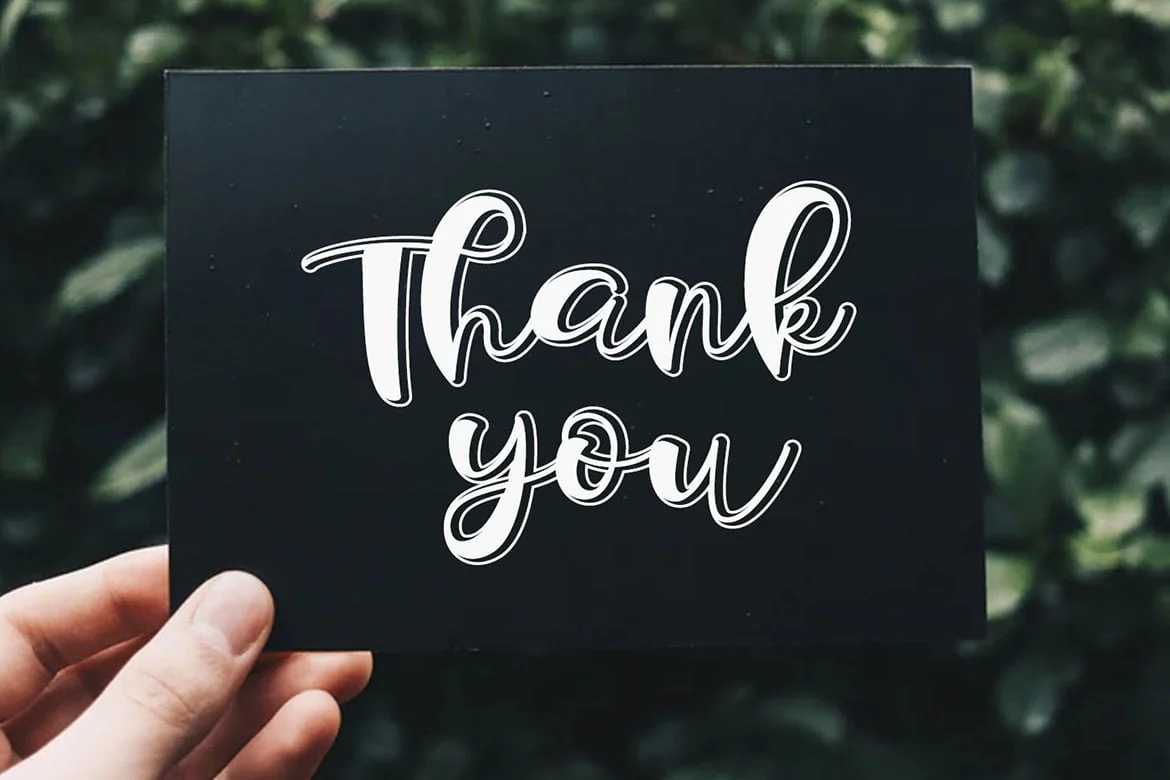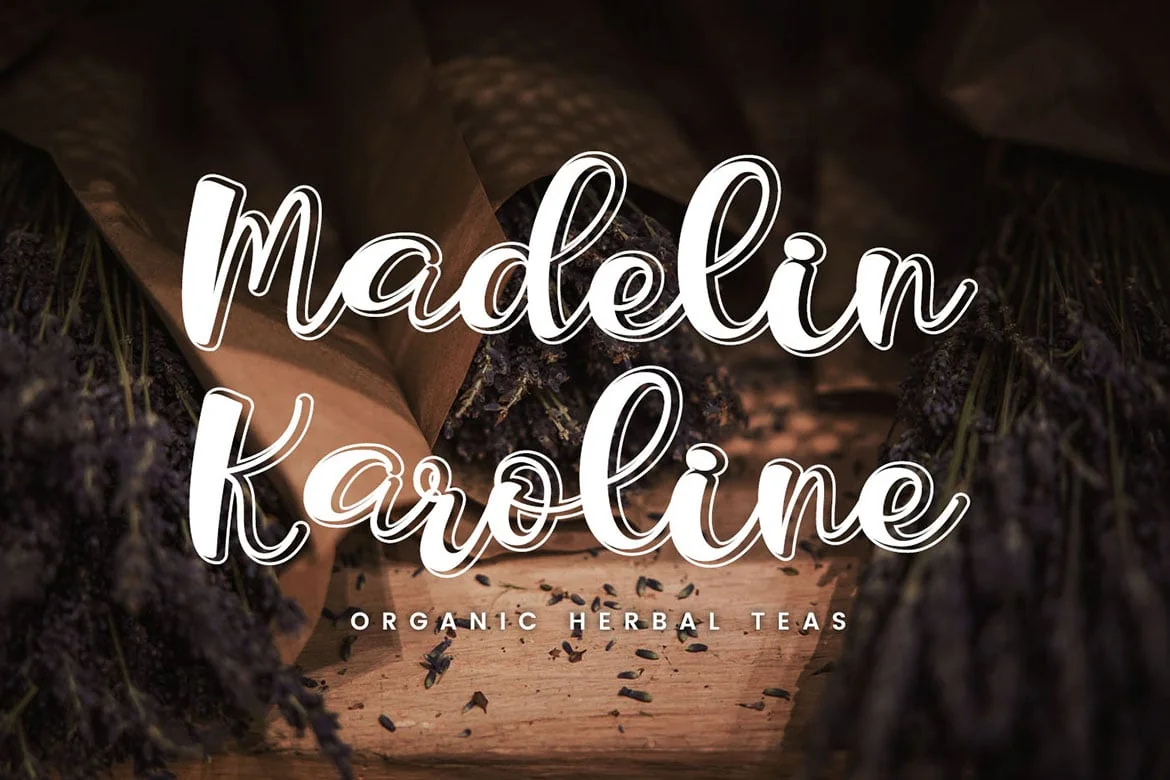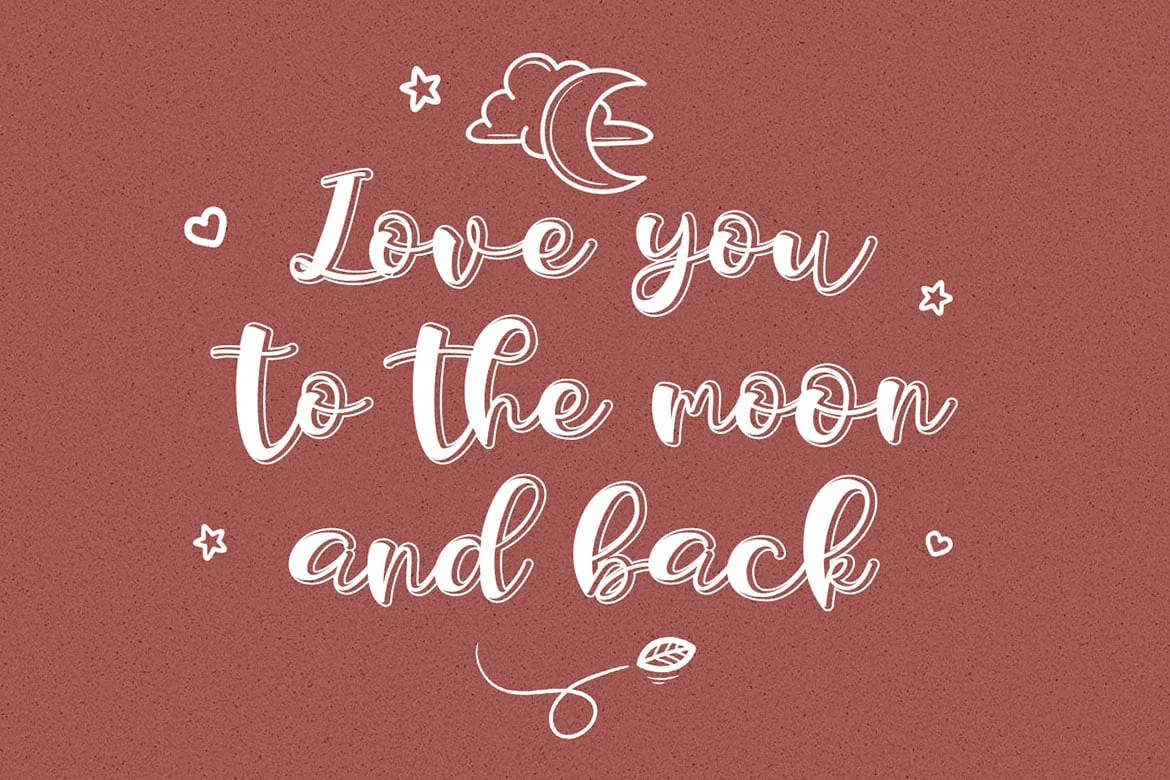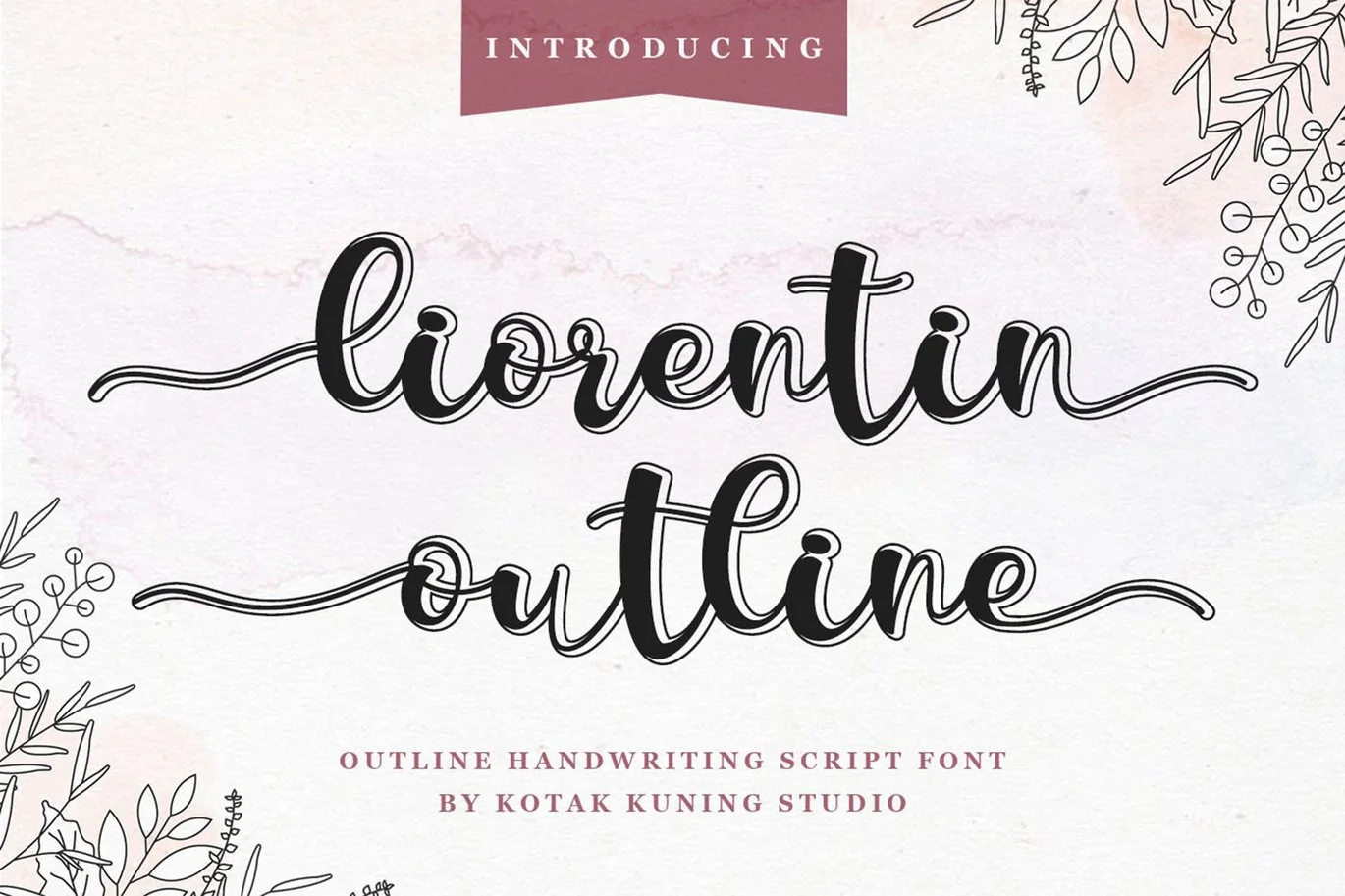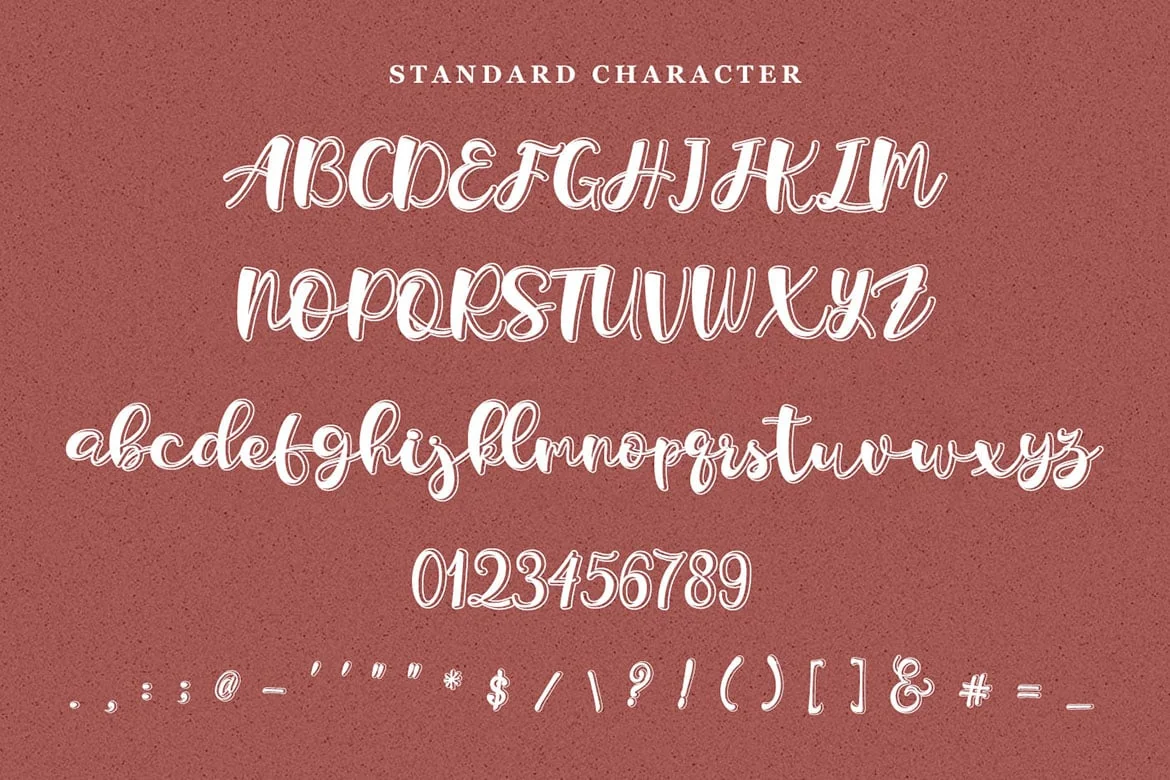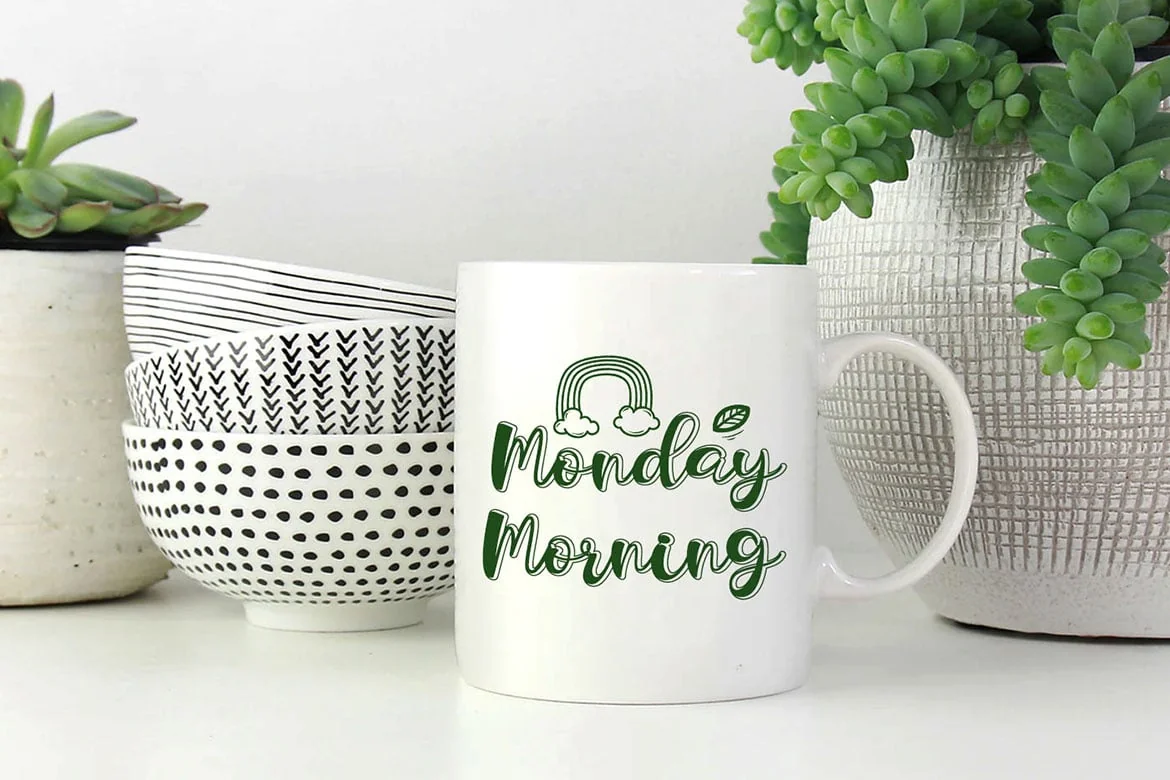
Liorentin Outline Script Font
Liorentin Outline is a sweet and stunning script that will add a personal feel to your next design idea. Fall in love with its playful look & feel.
Liorentin Outline would be perfect for logos & branding, photography, watermark, social media posts, advertisements, invitation, product designs, label, stationery, wedding designs, product packaging, special events or anything that need handwriting taste.